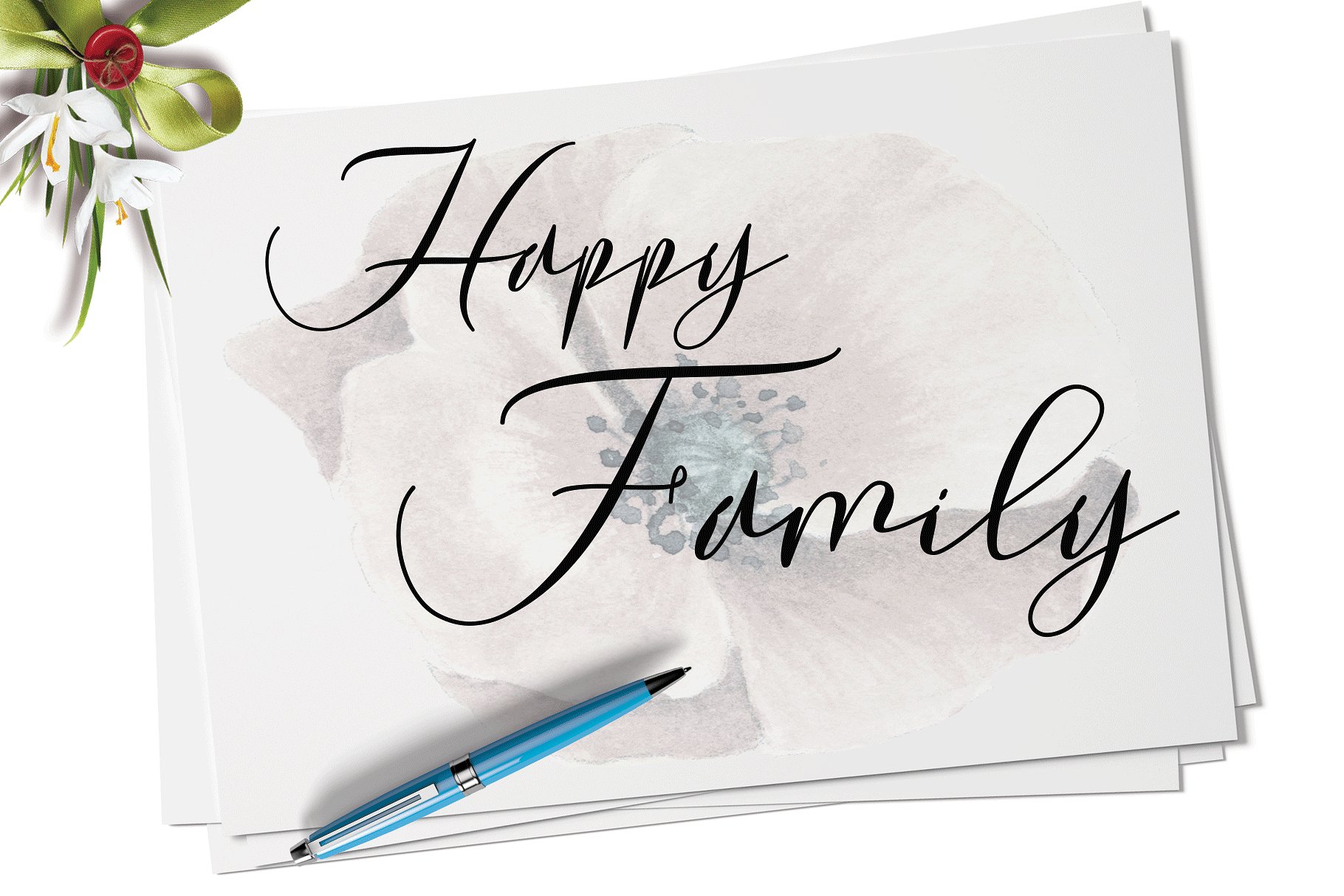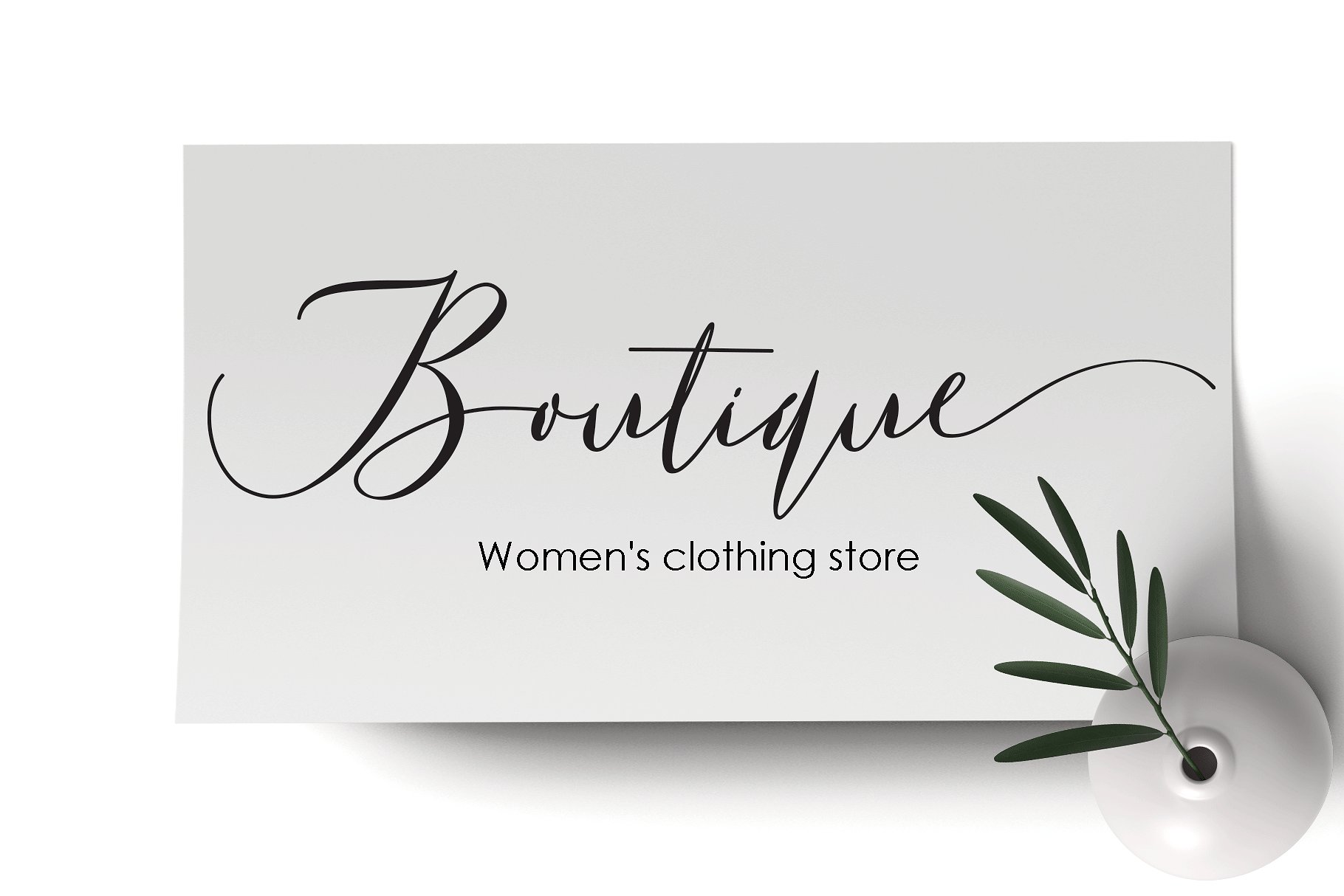
Laurretta Calligraphy Font
This is a modern calligraphy typeface, with a soft style and has an elegant nuances, classy and natural. Introducing Laurretta Font. Laurretta Modern Calligraphy. This font was designed by handwriting, and it has a modern and unique forms of calligraphy, the writing style is very natural. It’s ideal for logos, t-shirts, product packaging, headers, posters, greeting cards, and much more!